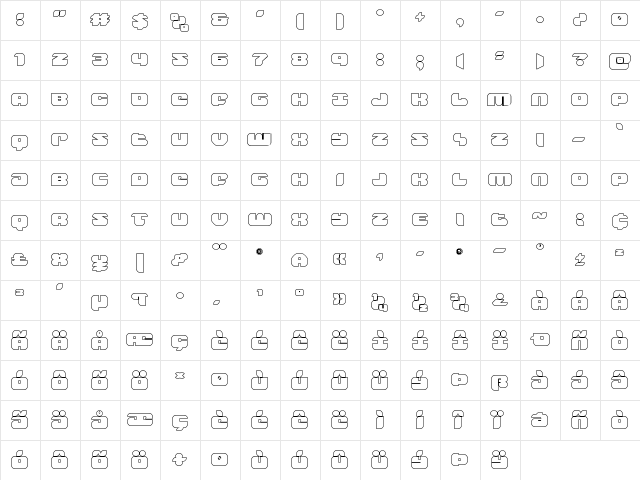
Groovy Smoothie Outline
Design Context for Groovy Smoothie Outline Typeface
Groovy Smoothie Outline brings ornamental detail and strong personality to headlines and identities, where visual impact matters more than quiet functionality.
Font Pairing: Pair with a clean neutral sans-serif for body copy to let Groovy Smoothie Outline's character lead without overwhelming the composition.
Pro Tip: Treat Groovy Smoothie Outline as the centrepiece of your typographic hierarchy. One strong heading set in a decorative face can carry an entire layout.